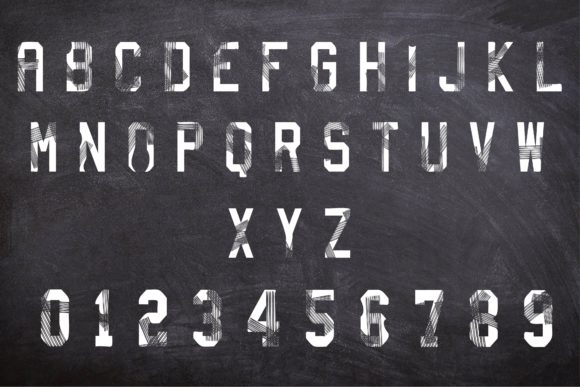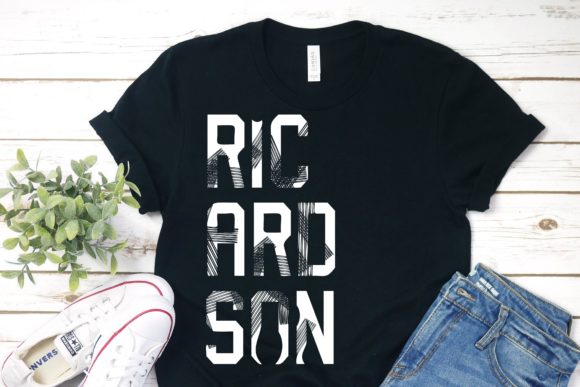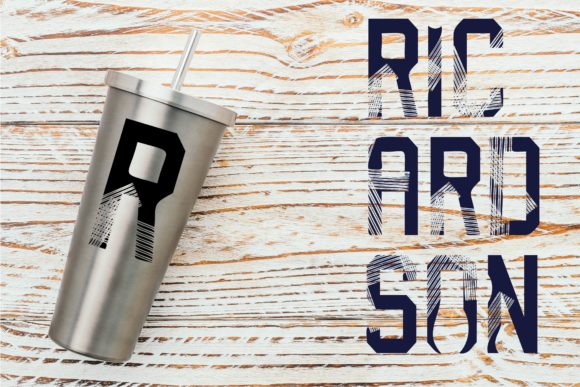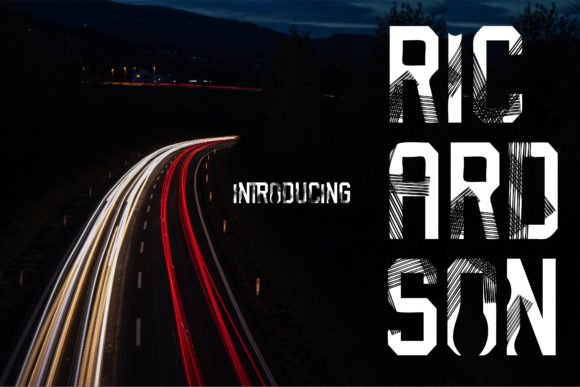
Introduction to Richardson Font
Richardson is a cute and modern display font with an incredibly friendly feel.
Whether you’re looking for fonts for Instagram or calligraphy scripts for DIY projects, this font will turn any creative idea into a true piece of art .
Key Features of Richardson Font
Why Choose Richardson Font?
Richardson Font offers exceptional quality and versatility, making it a valuable addition to your design toolkit. Whether you’re creating for personal projects or commercial use, Richardson Font delivers professional results.